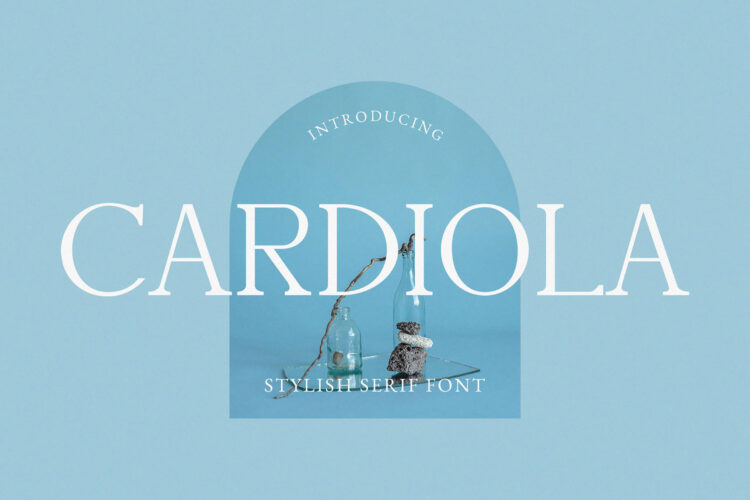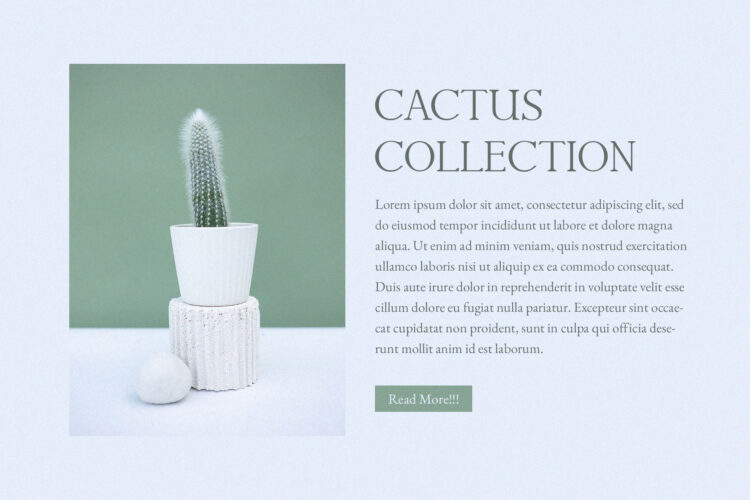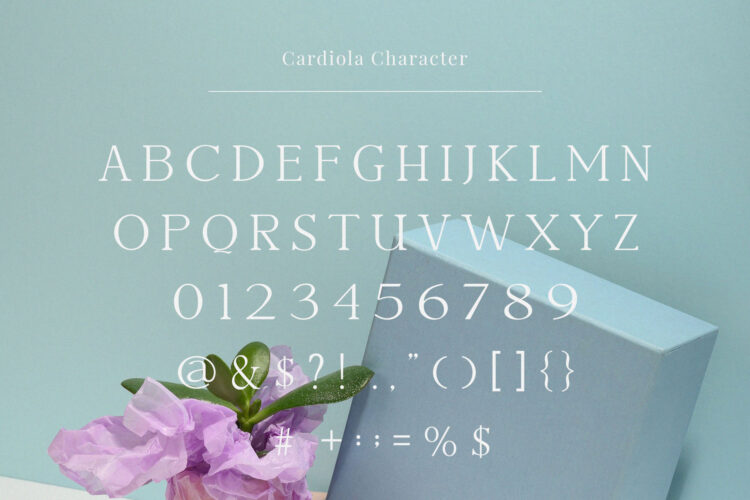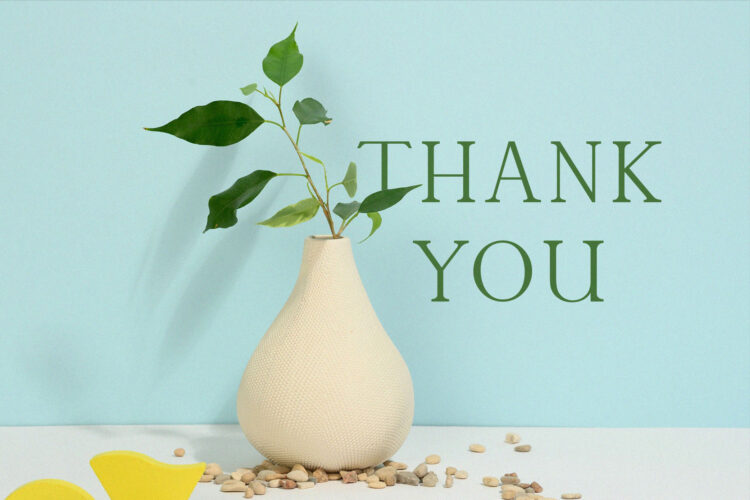
Introducing our new Cardiola, modern serif font with elegant style this is perfect for branding, logos, invitation, magazines, product packaging and more.
Cardiola – Modern Stylish Serif